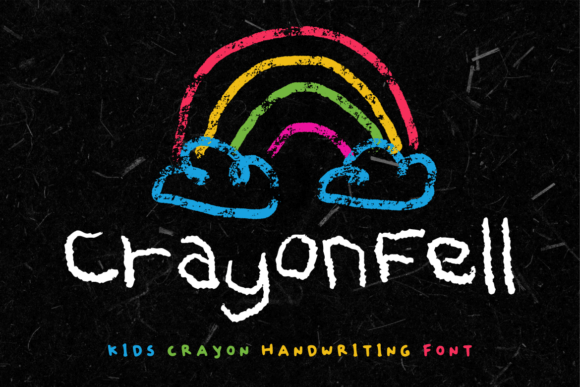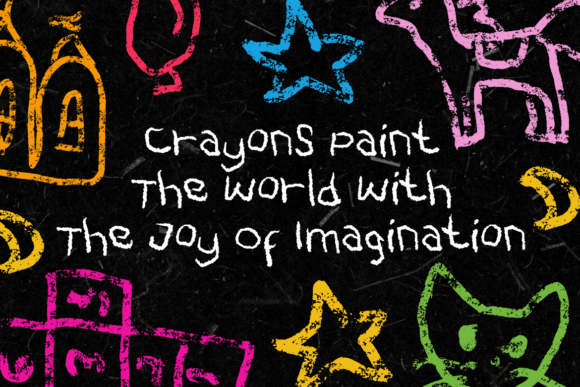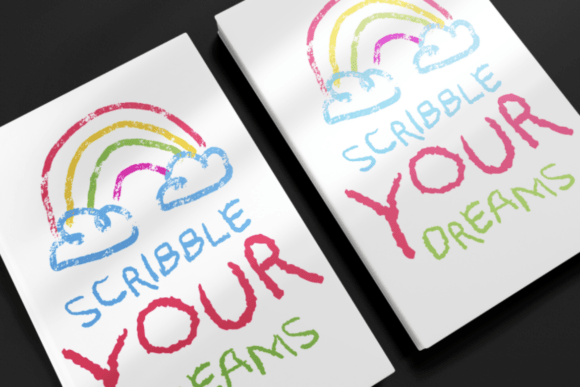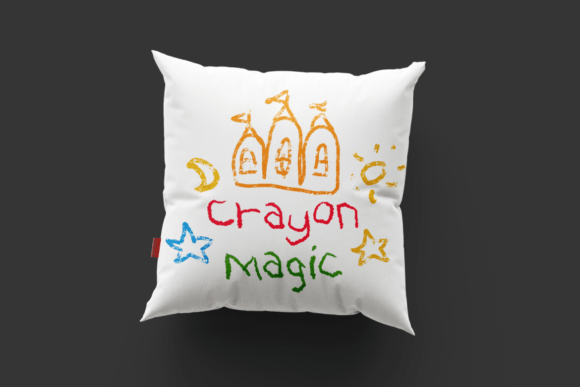
Crayon Fell Font
About the Crayon Fell Font
From logos to headlines, the Crayon Fell Font is the perfect choice for making a lasting impression. Introducing CrayonFell – Kids Crayon Handwriting Font, a delightful typeface that brings the joy and creativity of childhood right to your digital designs! This playful font captures the essence of crayon scribbles with its rounded, colorful, and quirky letterforms. Perfect for adding a touch of innocence and fun, CrayonFell is ideal for a wide range of projects, from logos and branding to crafting and invitation cards. The vibrant and handdrawn style of this font makes it a standout choice for posters, titles, business materials, greeting cards, movie titles, stickers, book covers, and magazines. Whether you’re designing for children or simply want to infuse your work with a playful spirit, CrayonFell is the perfect choice.
Each character in CrayonFell is meticulously crafted to mimic the look of real crayon strokes, giving your designs an authentic and charming feel. The font’s versatility allows it to shine in both digital and print media, making it a go-to option for any creative project. Its friendly and approachable style is sure to capture the hearts of both kids and adults alike. Use CrayonFell to create eye-catching and memorable designs that stand out from the crowd. With its unique blend of fun and functionality, this font is a must-have for any designer looking to add a touch of whimsy to their work.
Crayon Fell Font Usage Examples
Crayon Fell Font Example